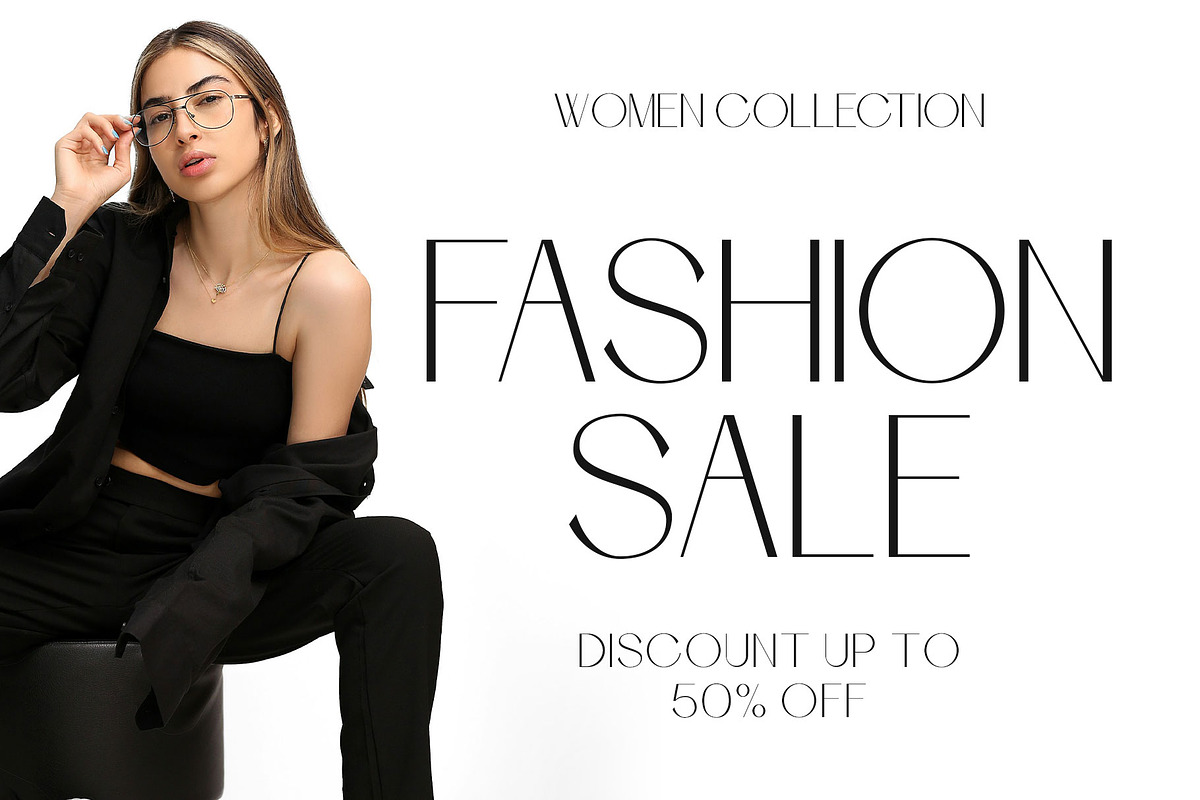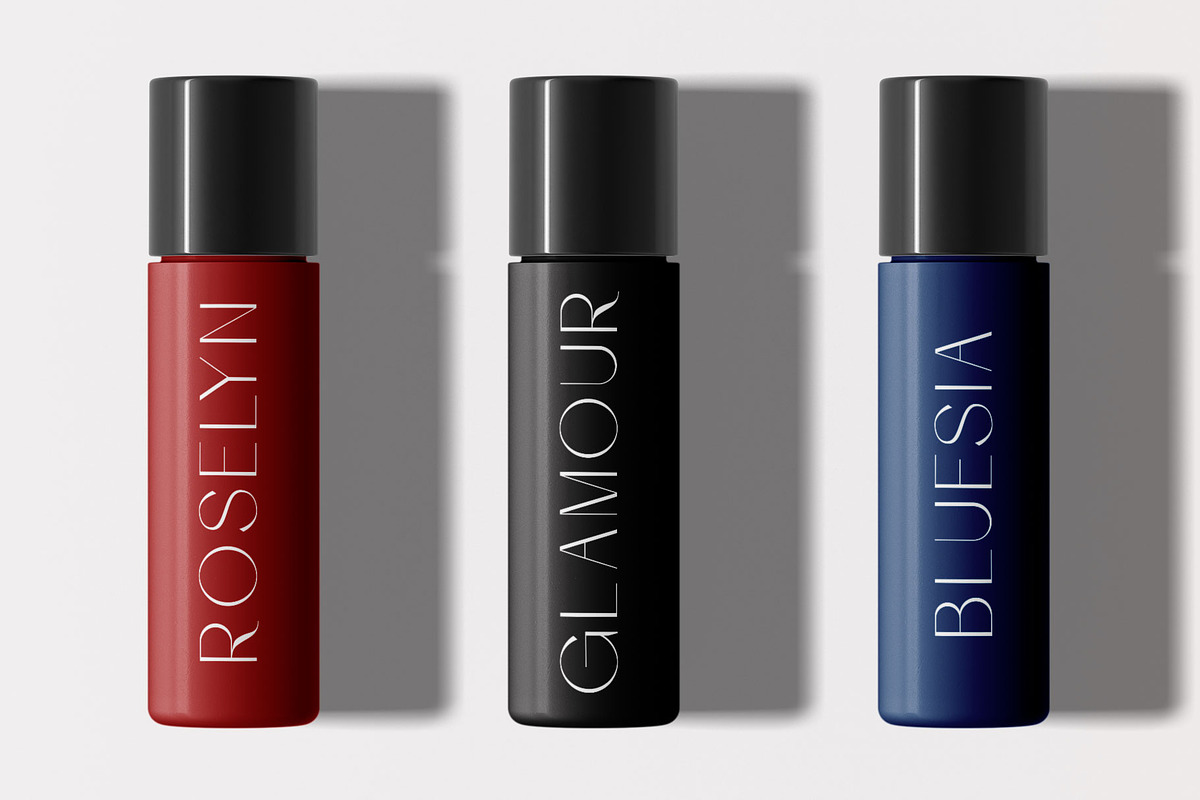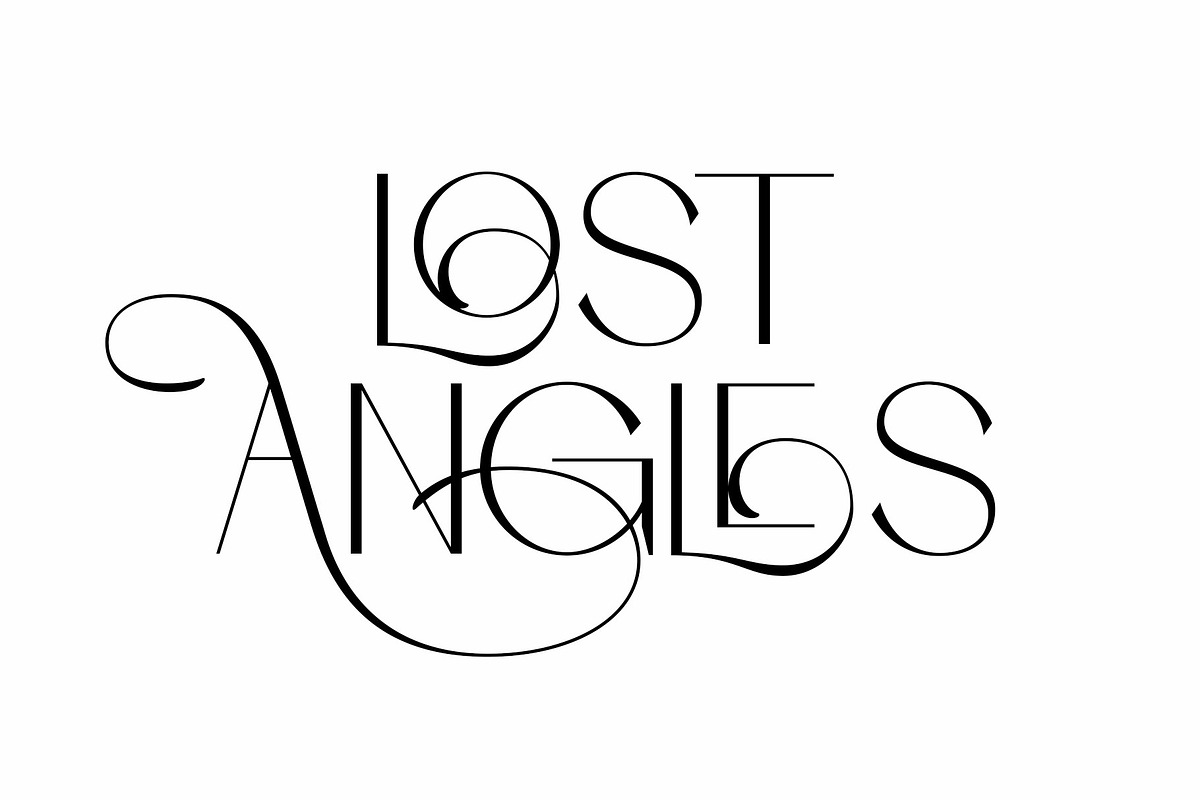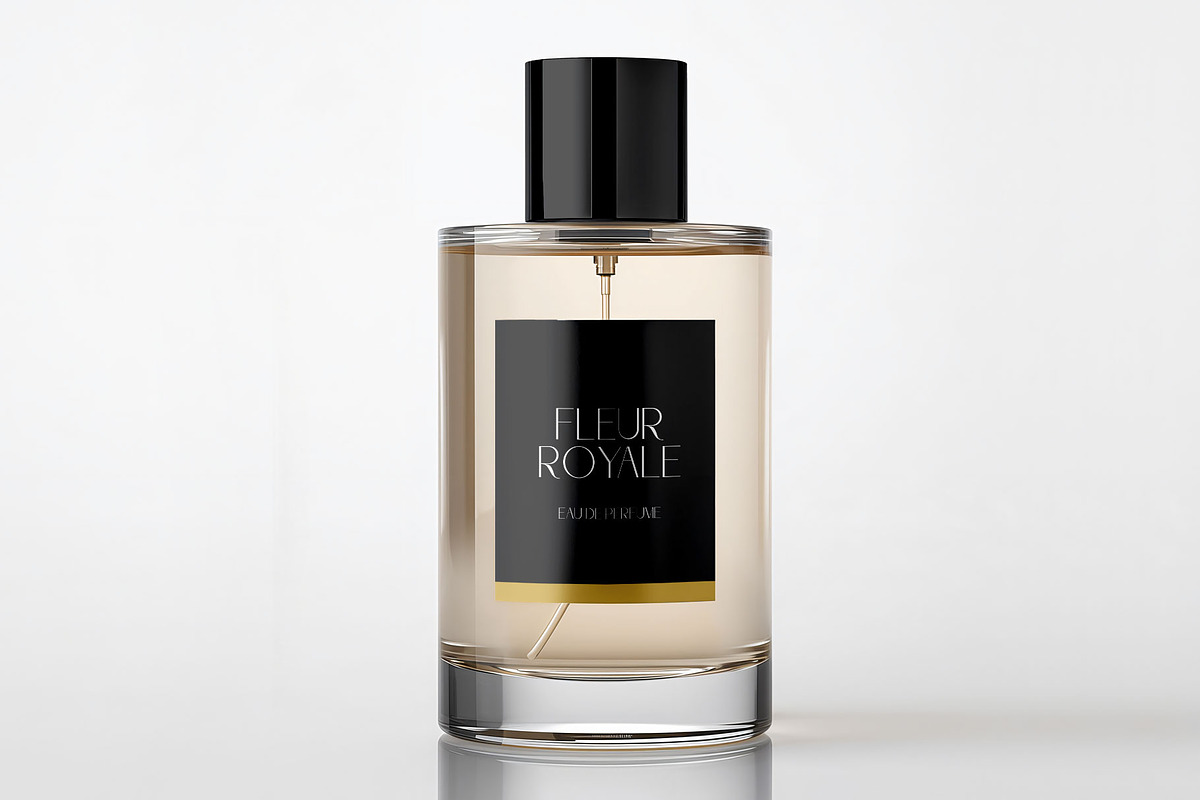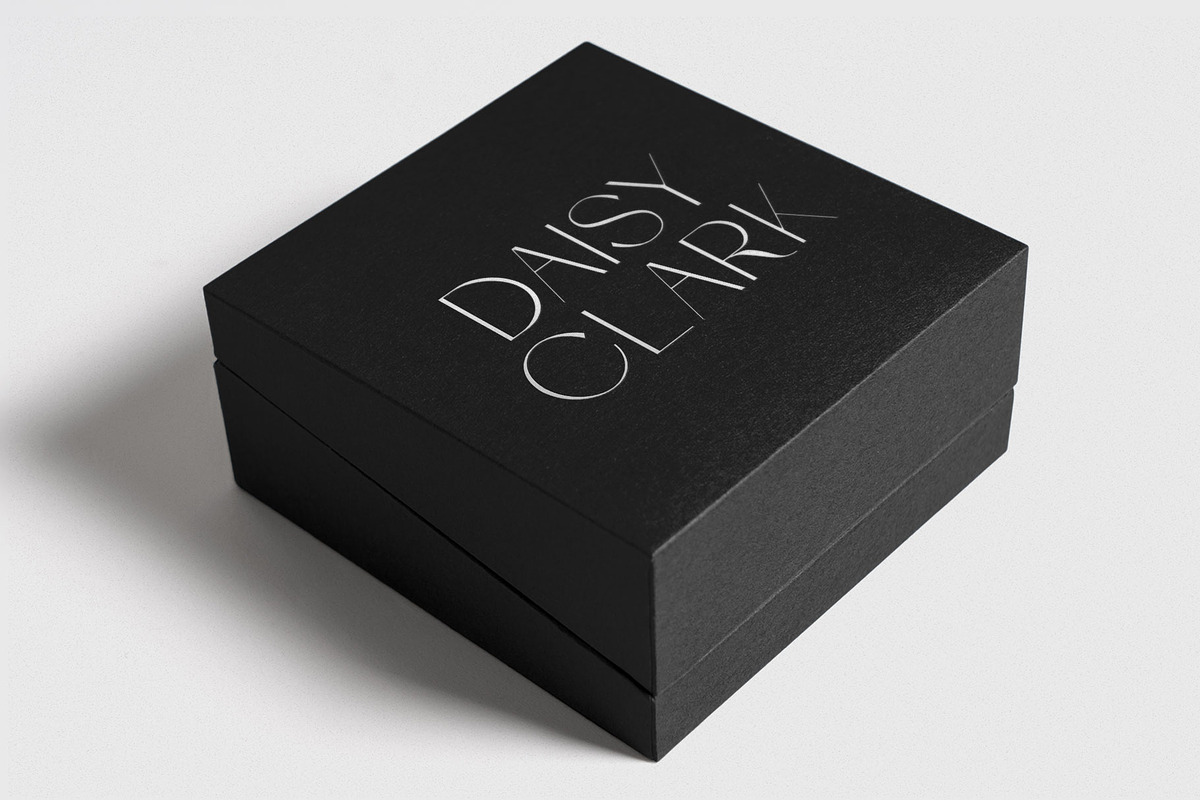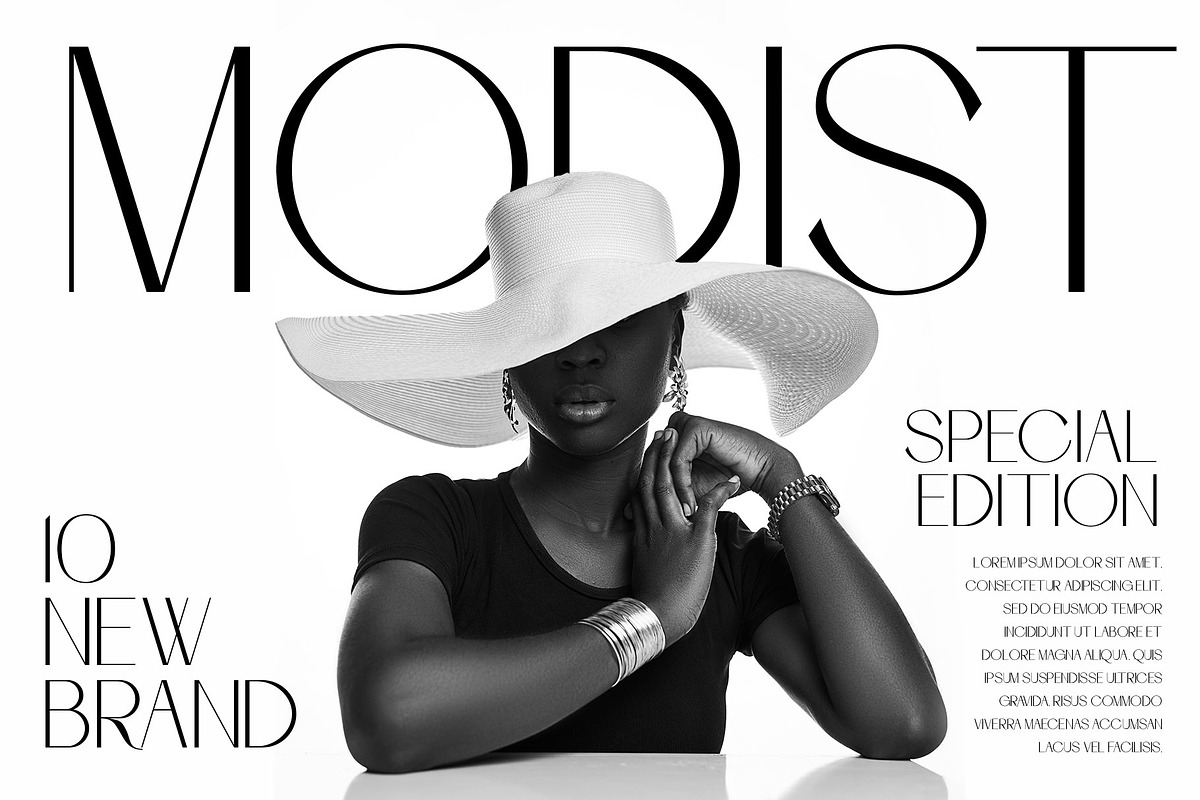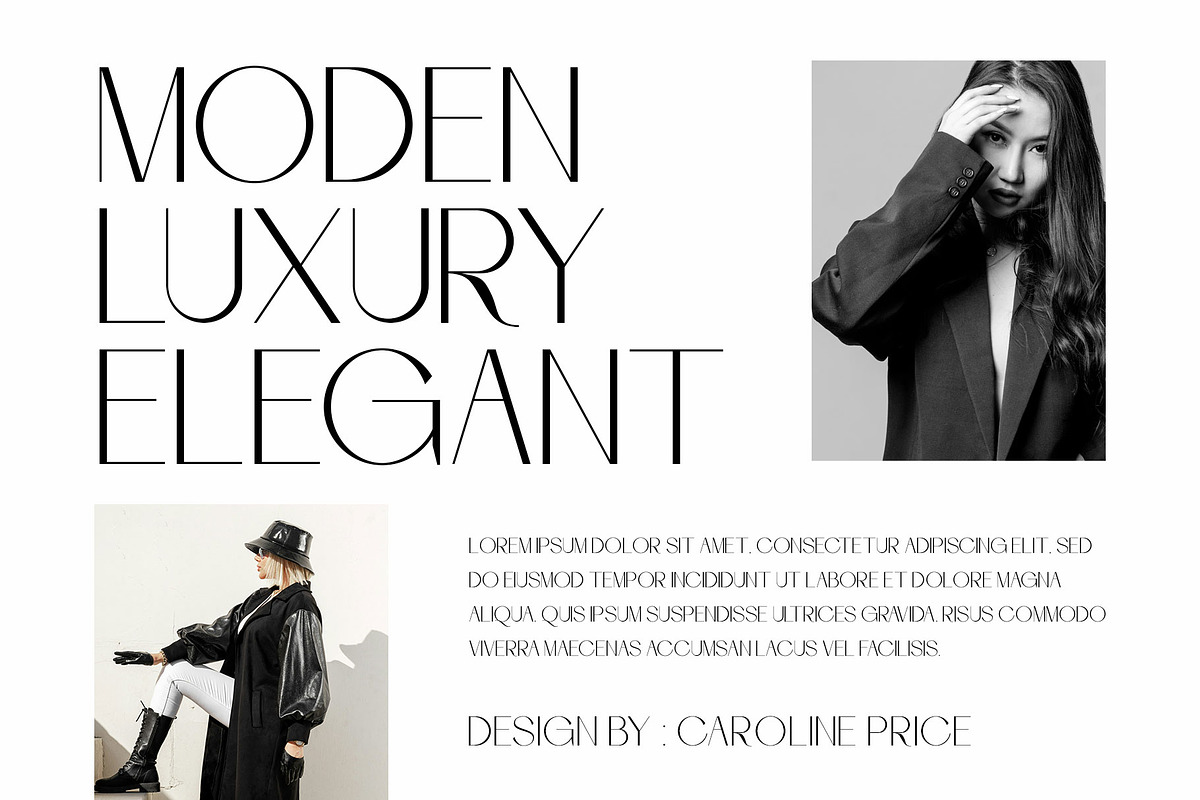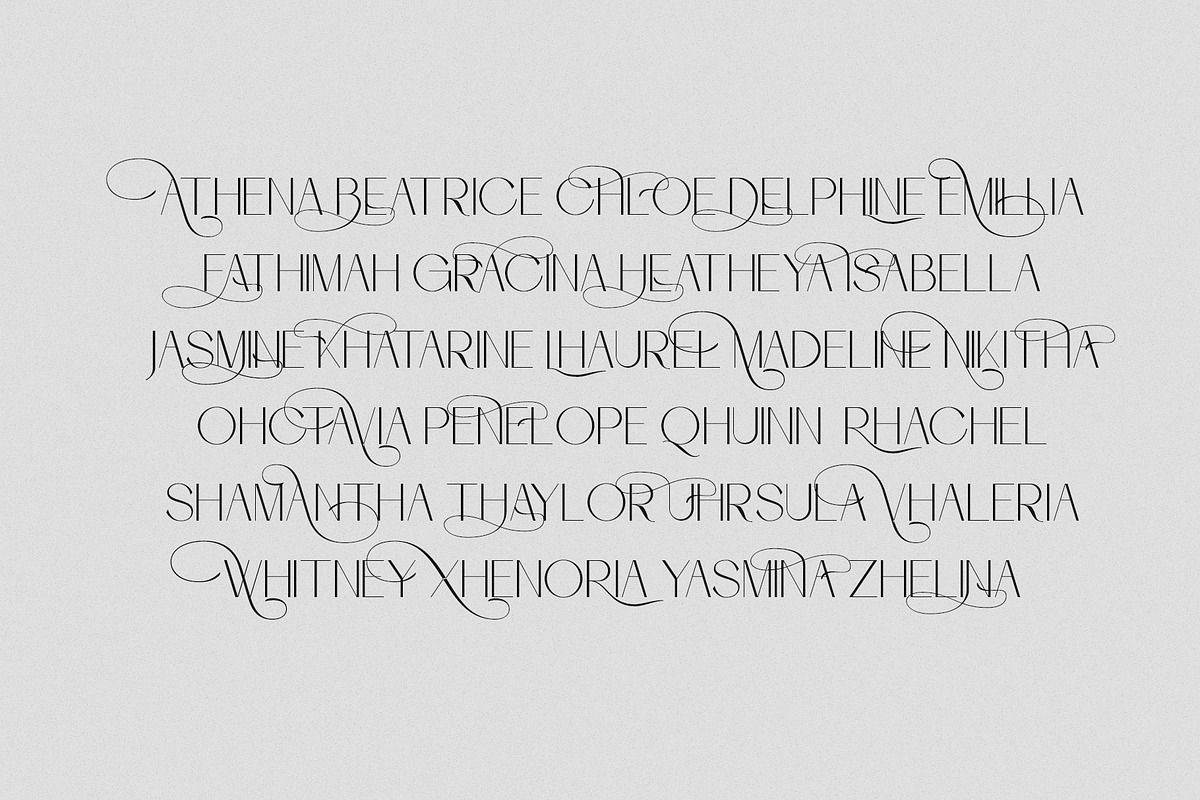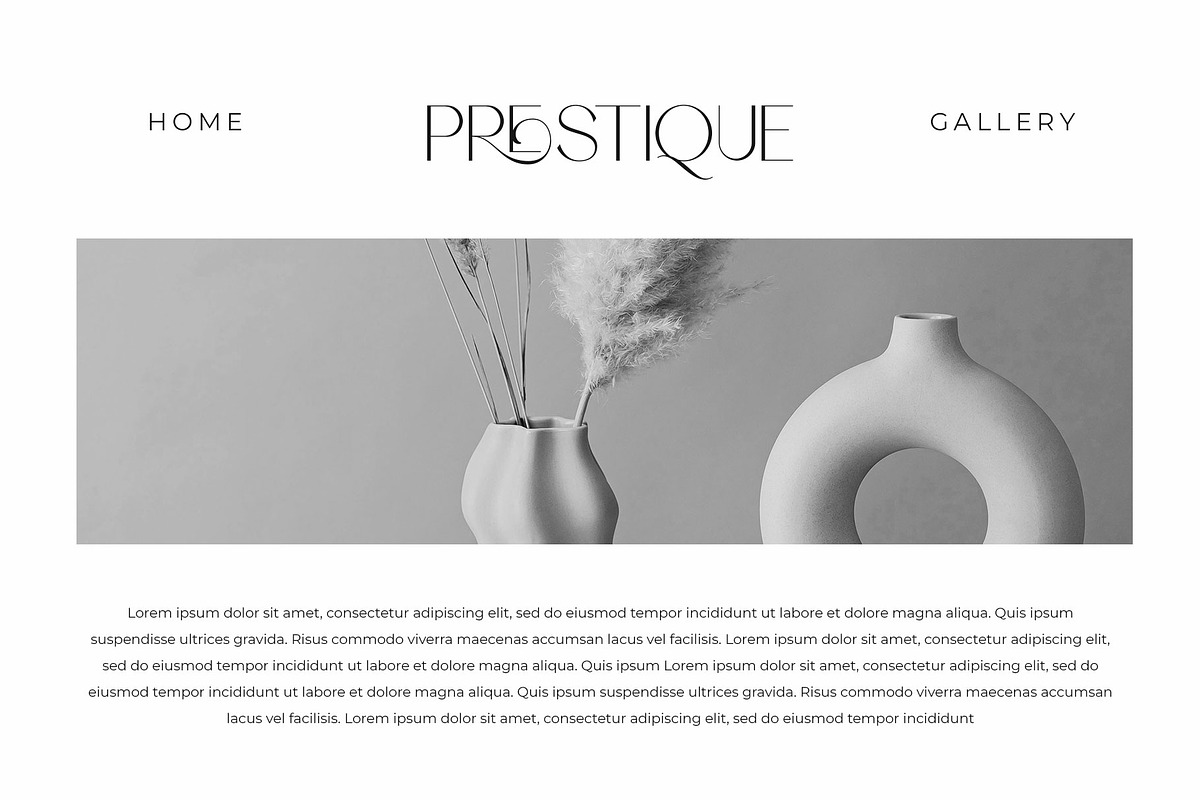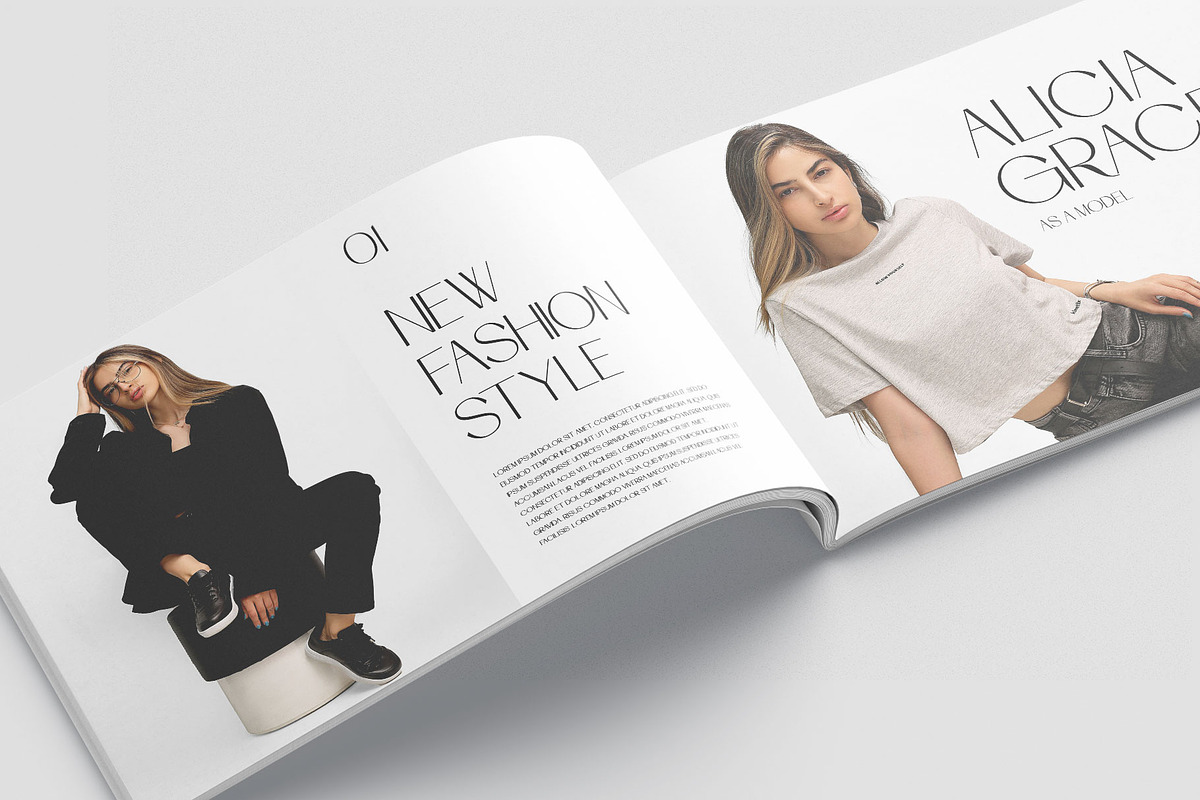
Ronedia Stylish Sans Font
Ronedia is elegant sans font embrace grace and fashionable. Ronedia come with stylish alternate you can mix to create awesome design. Ronedia is a perfectly choice for any creative endeavor, creating, modern, lifestyle design such as logotype, title, cover, branding, invitations, wedding designs, display and magazine, social media posts, advertisements, printed quotes, product packaging, corporate brand, product designs, labels, photography, watermarks, special events and any other project with elegant touch.
Standart Glyphs
Numberial and Functional
Alternate and ligature
Fonts include Multilingual Character for: Afrikaans, Albanian, Asu, Basque, Bemba, Bena, Breton, Chiga, Cornish, Dutch, English, Estonian, Filipino, Finnish, Friulian, Galician, Gusii, Indonesian, Irish, Italian, Kabuverdianu, Kalenjin, Kinyarwanda, Luo, Luxembourgish, Luyia, Machame, North, Oromo, Portuguese, Quechua, Romansh, Rombo, Rundi, Rwa, Samburu, Sango, Sangu, Scottish, Gaelic, Sena, Shambala, Shona, Soga, Somali, Spanish, Swahili, Swedish, Swiss, German.